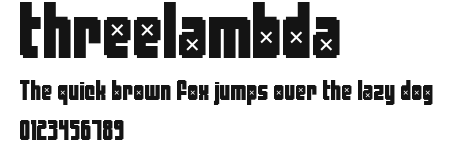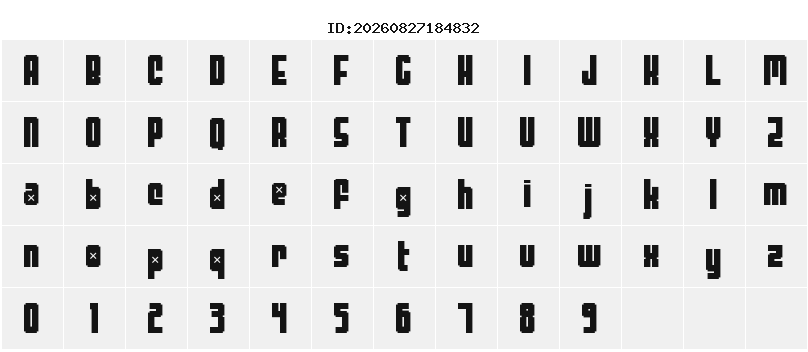
threelambda Preview
• Font Name: threelambda
• Full Font Name: threelambdaRegular
• PostScript Name: threelambda
About threelambda.ttf
threelambda.ttf is a modern, elegant sans-serif font designed for ultimate readability and visual harmony. Perfect for branding, headlines, web design, and print materials.